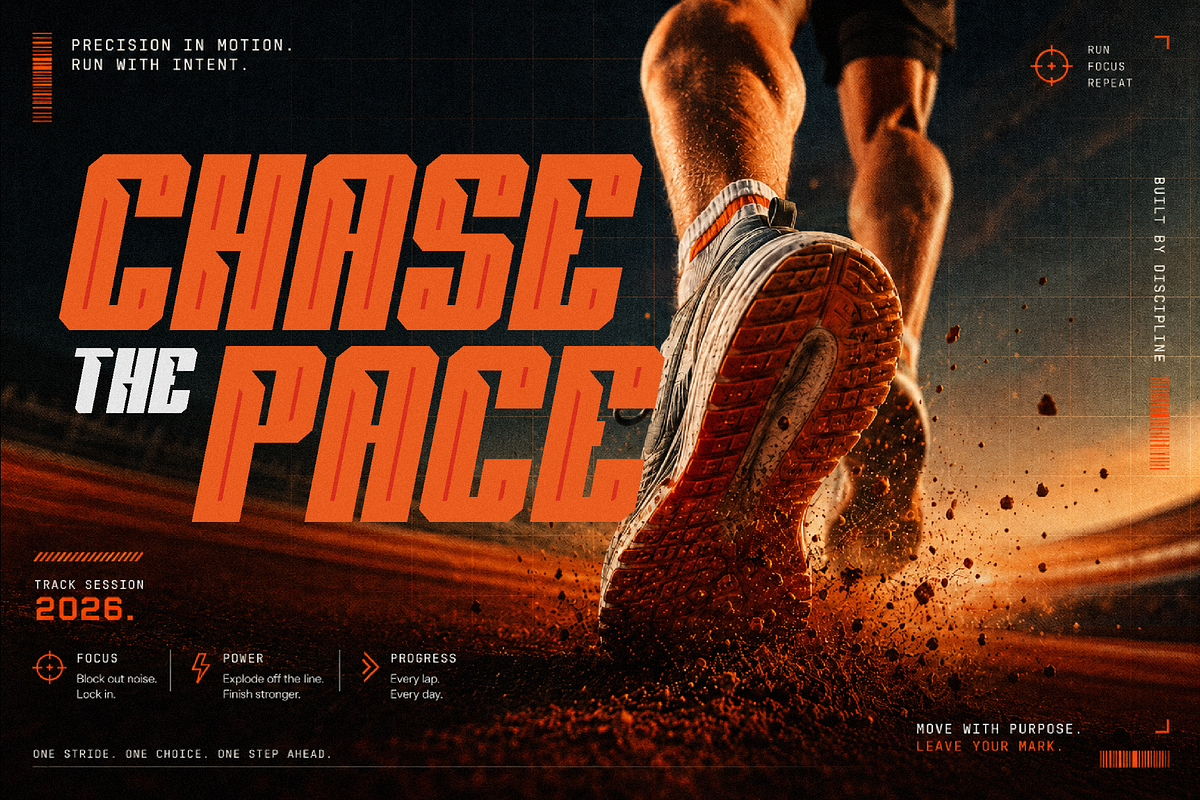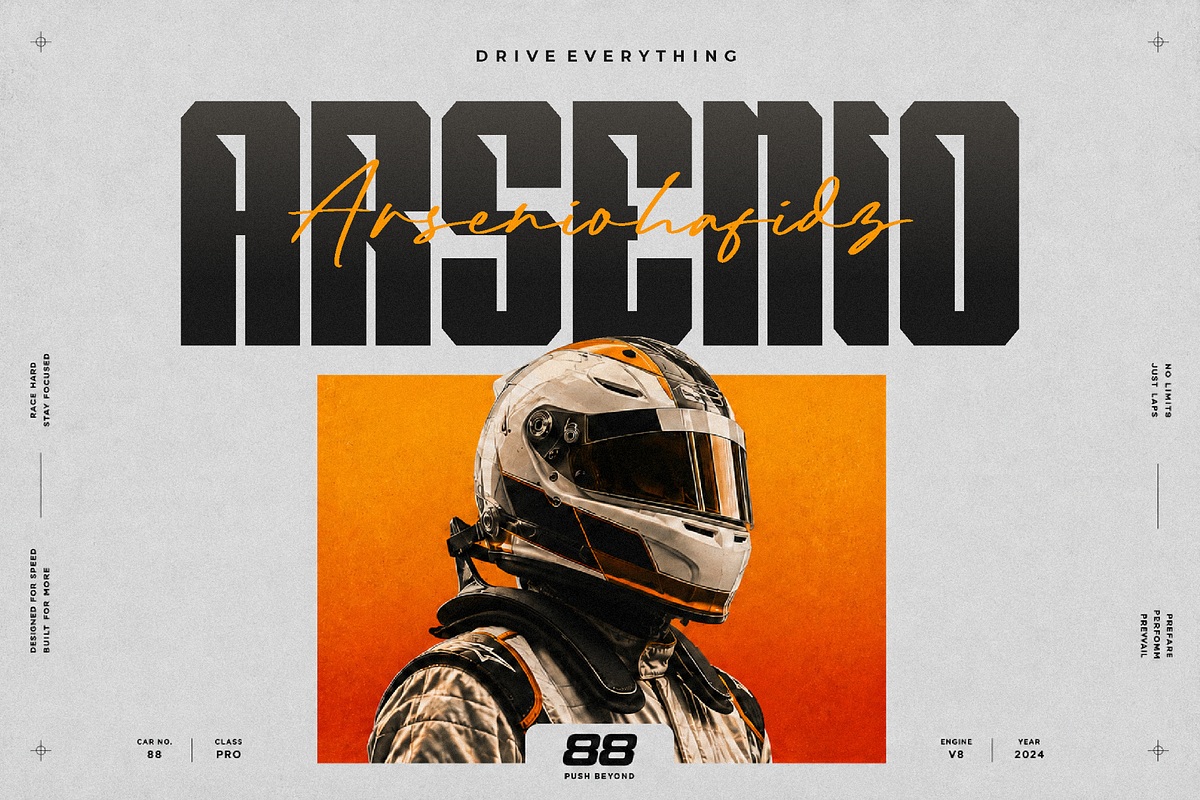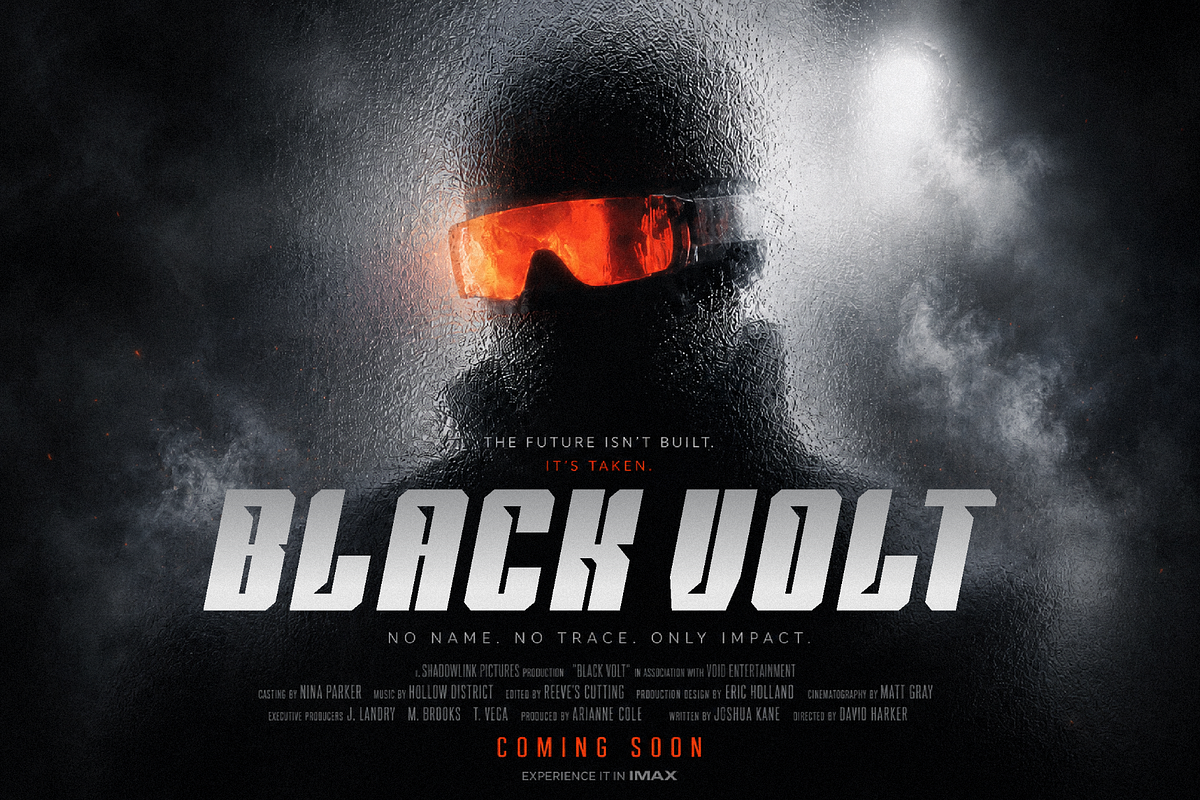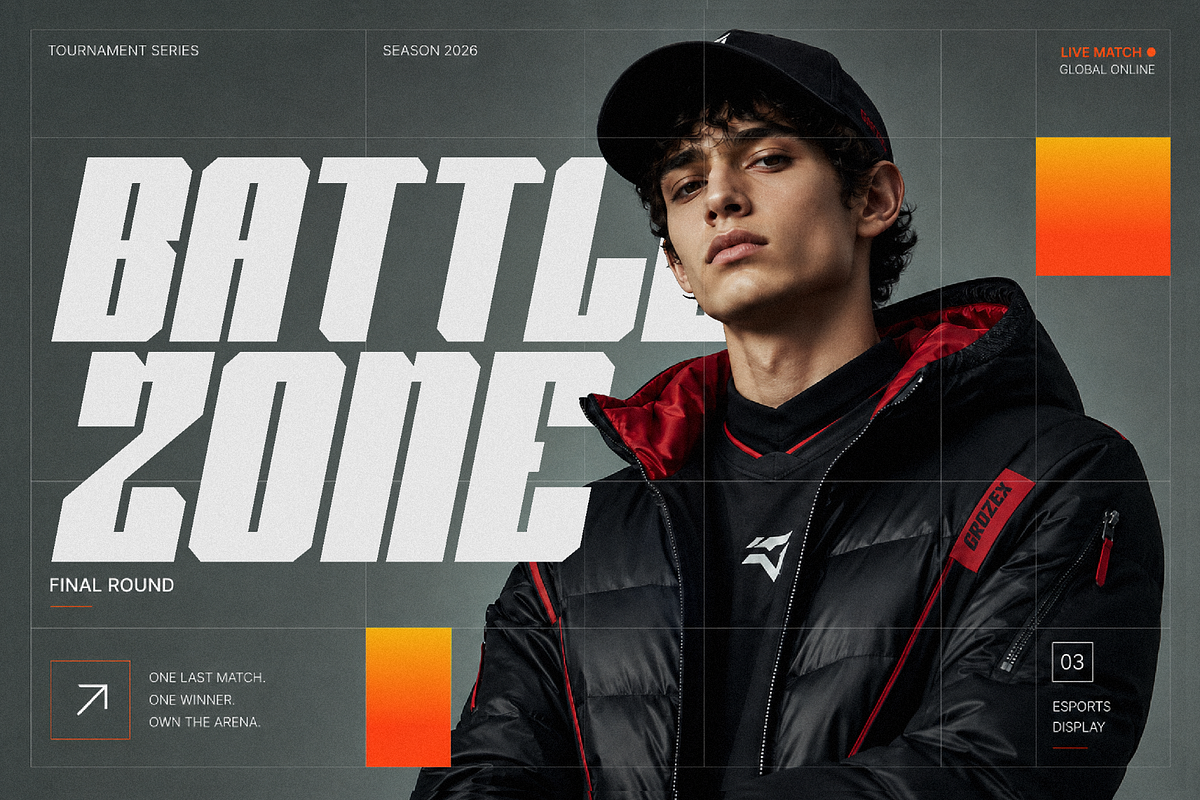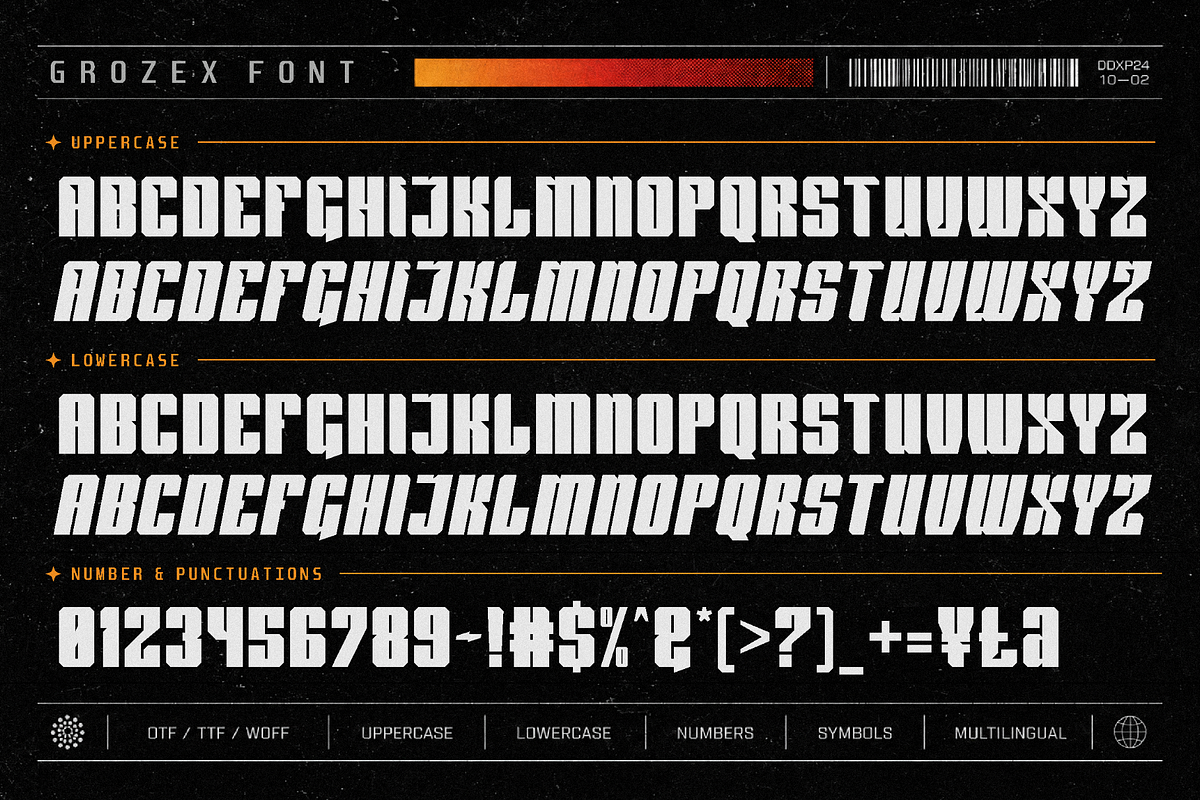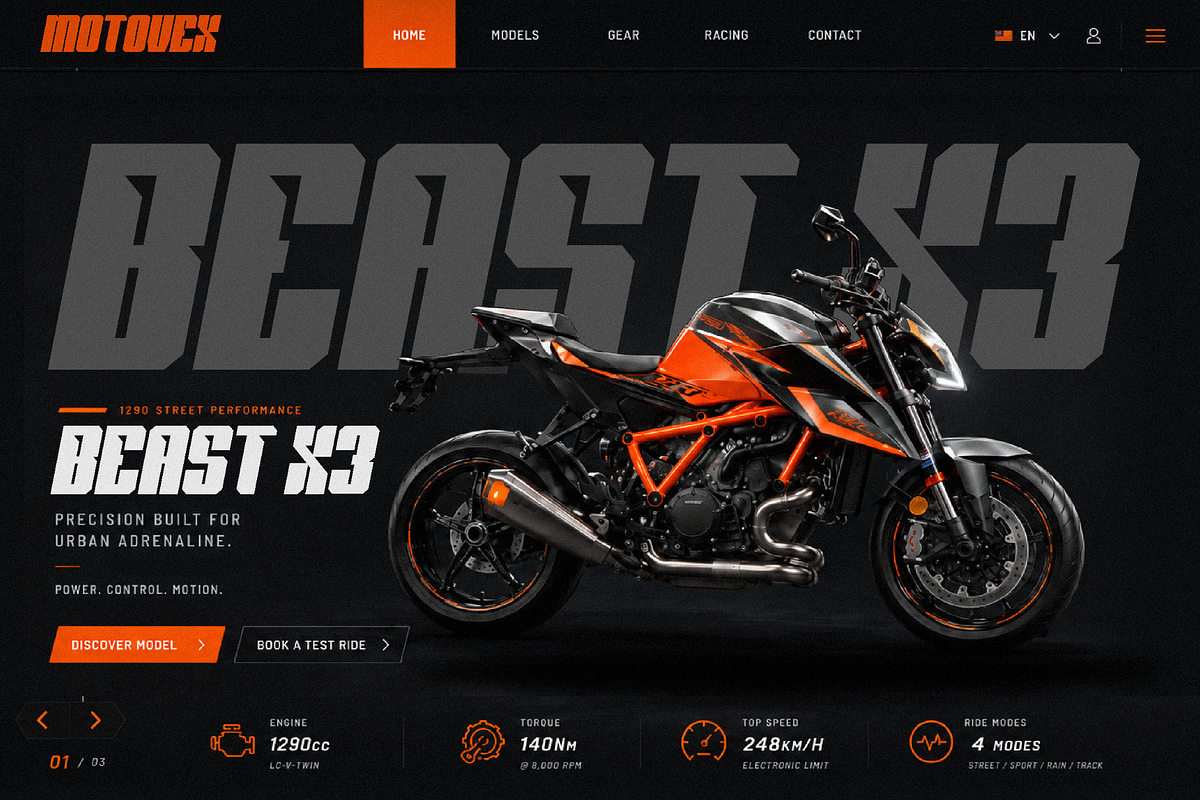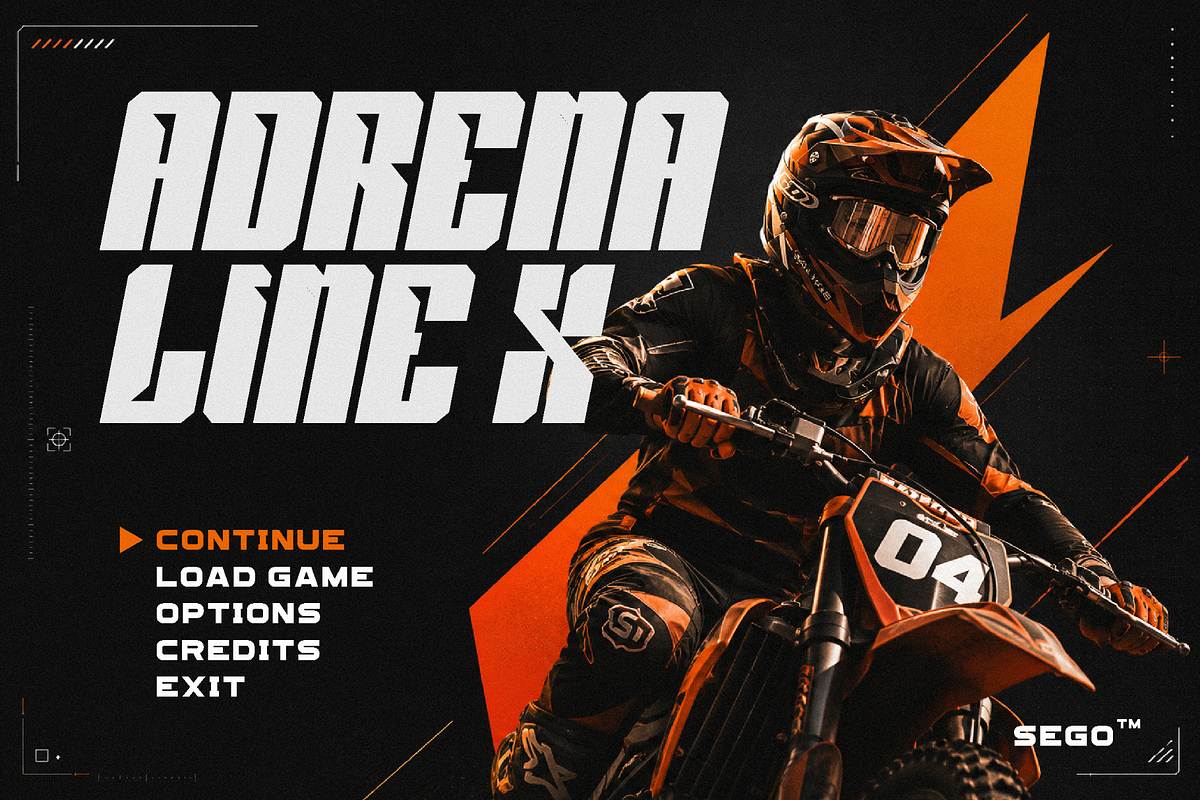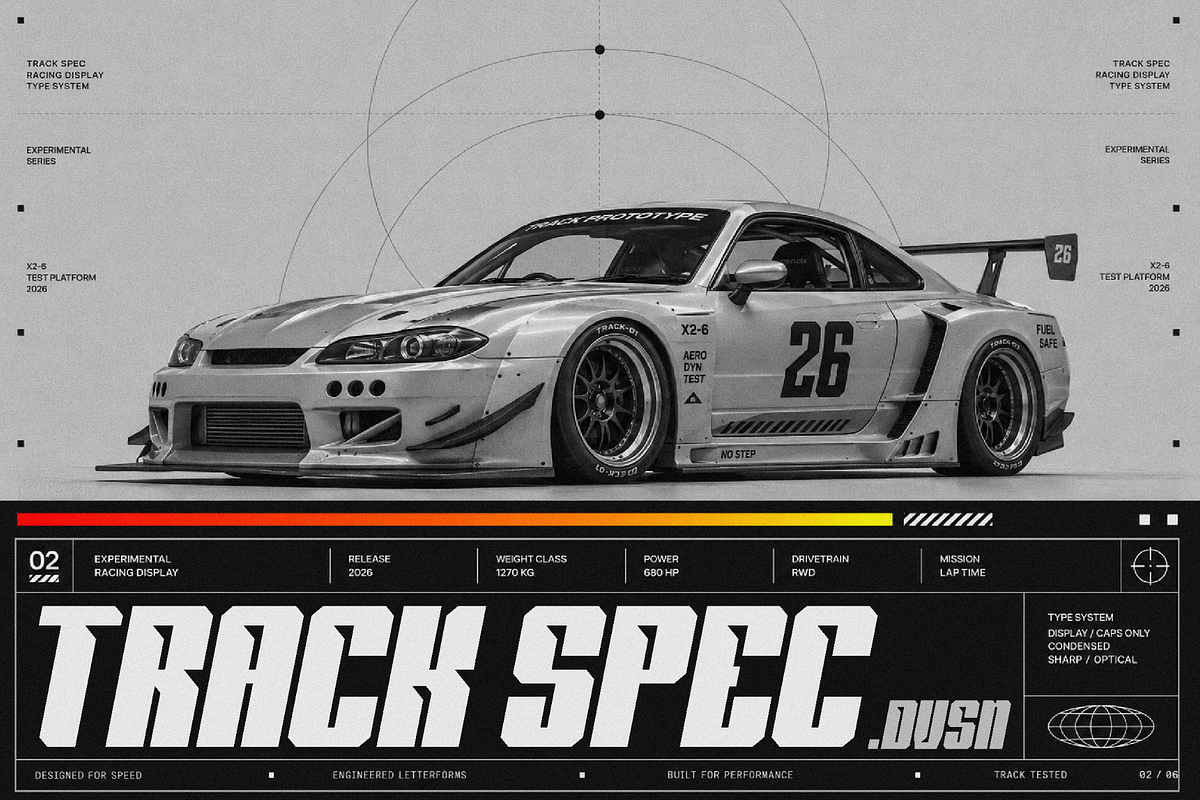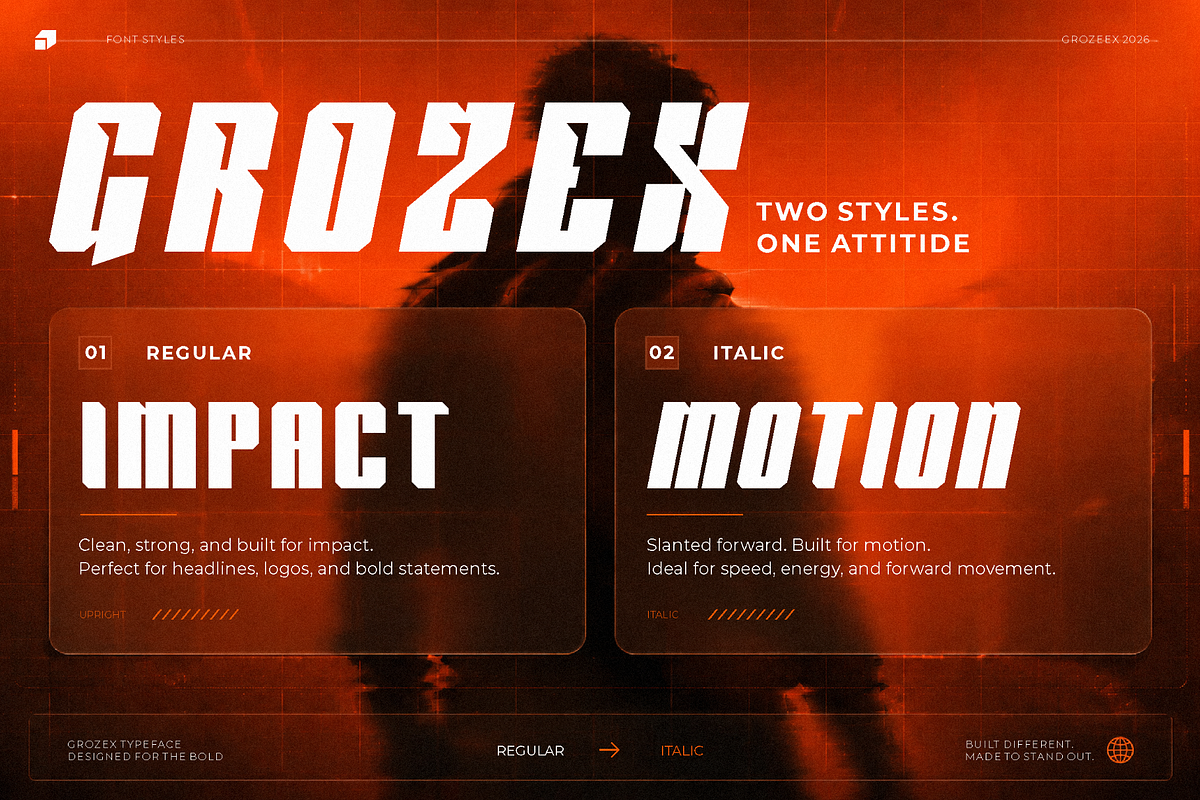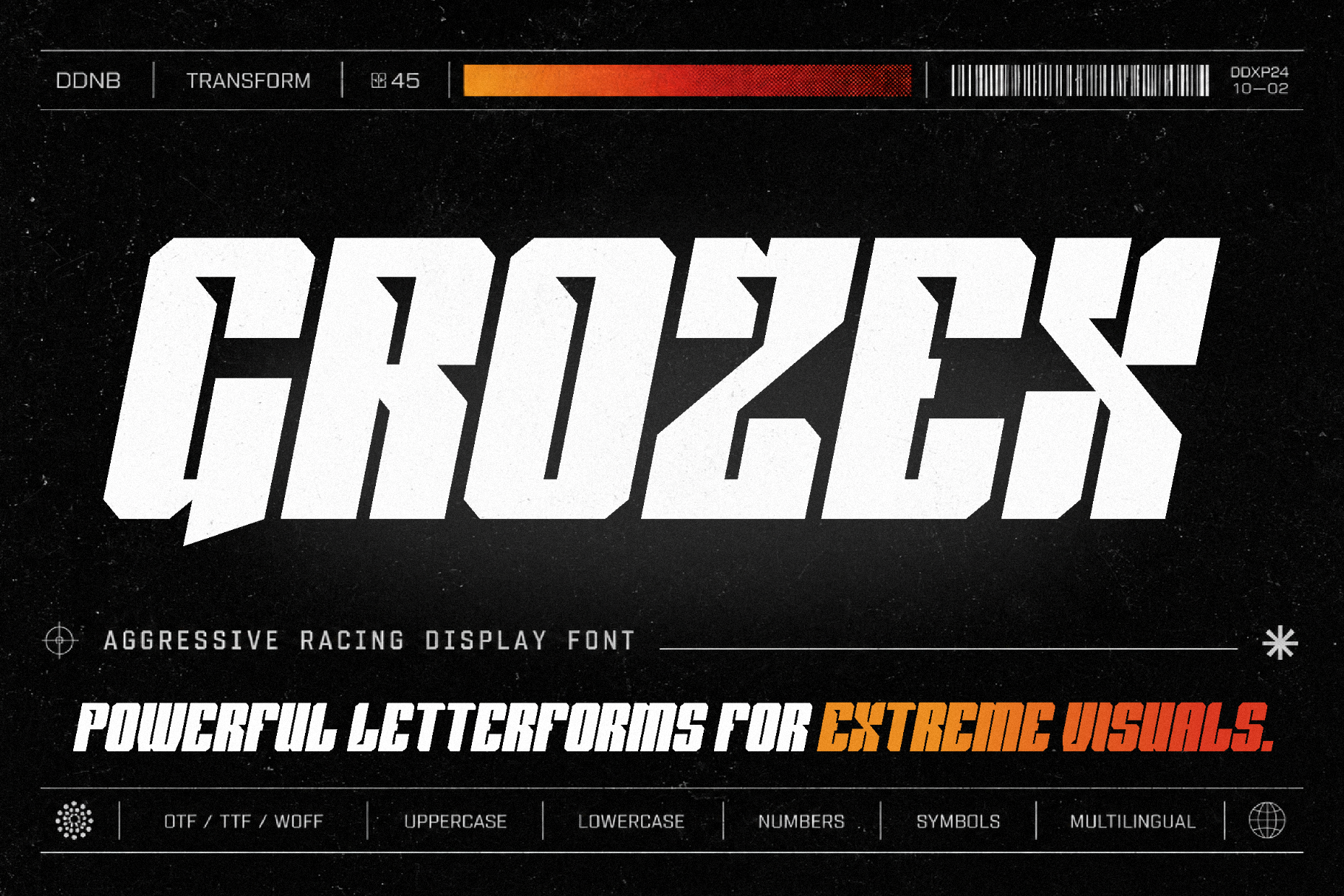
Grozex - Aggressive Racing Font
Grozex Aggressive Racing Font for Speed-Driven Visuals
Grozex is an aggressive racing font created for designs that need motion, pressure, and visual impact at first glance. Built with a bold racing personality, Grozex gives your typography a fast, competitive, and energetic look that feels right at home in automotive branding, motorsport graphics, esports visuals, sportswear, posters, packaging, and high-impact digital content.
This font is made for designers who want their words to feel active, not static. Whether you are building a racing team identity, a car club logo, a bold apparel graphic, or a punchy social media campaign, Grozex helps your message look sharper, stronger, and more performance-focused.
With Regular and Italic styles included, Grozex gives you flexibility for both stable headline layouts and more dynamic, forward-moving compositions. Use the Regular style when you need a powerful, grounded title. Use the Italic style when the design needs more speed, direction, and movement.
Design Style and Visual Personality
Grozex carries a bold, aggressive, and athletic display style. Its personality is strong and competitive, making it a practical choice for visual identities connected to racing, speed, automotive culture, gaming, action sports, and energetic branding.
The font feels direct and confident. It does not try to be delicate or decorative. Instead, Grozex is built for projects that need a strong typographic presence. It can bring a sense of performance to a logo, make a poster headline feel more intense, or give a jersey design a sharper visual rhythm.
Because Grozex includes both upright and italic styles, it can support different moods within one design system. The Regular version works well for strong titles, brand names, badges, and labels. The Italic version adds a more dynamic feel, which is especially useful for racing graphics, speed-themed posters, YouTube thumbnails, esports banners, and automotive promotional materials.
Best Use Cases
Grozex is a strong choice for designers working on bold visual projects where typography needs to lead the composition. It works especially well for racing-related branding, motorsport event posters, car community graphics, garage logos, custom vehicle decals, sports team identities, esports titles, gaming graphics, apparel design, and promotional campaigns.
For print projects, Grozex can be used on posters, flyers, product packaging, merchandise, stickers, banners, and display graphics. Its bold style helps headlines stand out clearly, making it useful for designs where fast recognition matters.
Bold aggressive racing font style
Suitable for automotive, racing, sports, esports, apparel, posters, and branding projects
Why Designers Love It
Designers love Grozex because it makes bold concepts easier to communicate. When a project needs to feel fast, competitive, and powerful, the font choice matters. Grozex helps create that energy without needing overly complex layouts.
For brand designers, Grozex can become the main visual voice of an automotive or sports identity. Its bold racing direction gives logos and headlines a clear theme, which is useful when building a brand that needs instant recognition.
For apparel designers, Grozex works well on t-shirts, racing jerseys, hoodies, caps, and merchandise graphics. The style has enough strength to hold attention on product mockups, especially when paired with strong color contrast, sporty layouts, or action-inspired illustrations.
For content creators, Grozex can help thumbnails, banners, and social graphics feel more urgent and clickable. It gives short words and punchy titles a strong display presence, making it useful for racing videos, car edits, gaming channels, sports highlights, and high-energy promotional content.
For packaging and label designers, Grozex can support products that need a tough, performance-based identity. It can work for automotive accessories, energy-focused branding, sports products, and bold, limited-edition packaging.